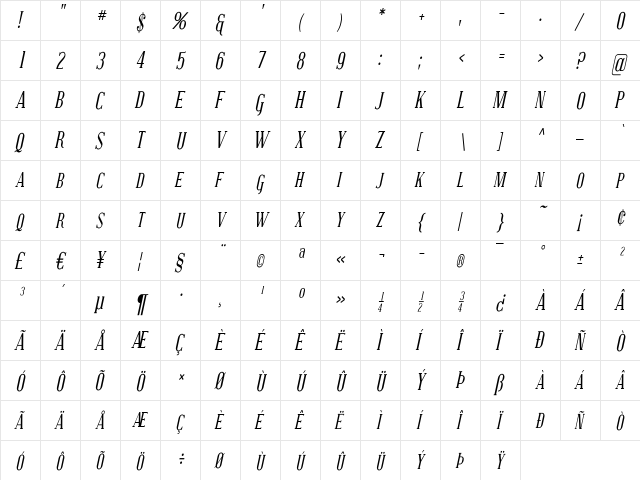
Covington SC Cond Italic Font Preview
| Designer | Derek Vogelpohl |
Design Context for Covington SC Cond Typeface
Covington SC Cond takes a measured approach to typography — its balanced proportions and neutral character make it a reliable workhorse for both digital and print work. The dynamic lean of this cut emphasises speed and emphasis in any layout. The condensed width makes it efficient for tight spaces without sacrificing legibility.
Pro Tip: Try Covington SC Cond for annotation and caption copy alongside an upright companion — the contrast in angle creates a dynamic but ordered typographic system.